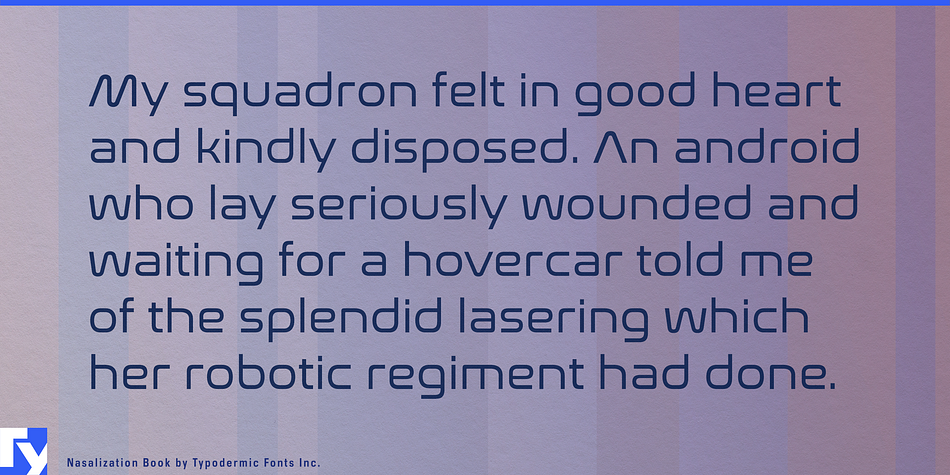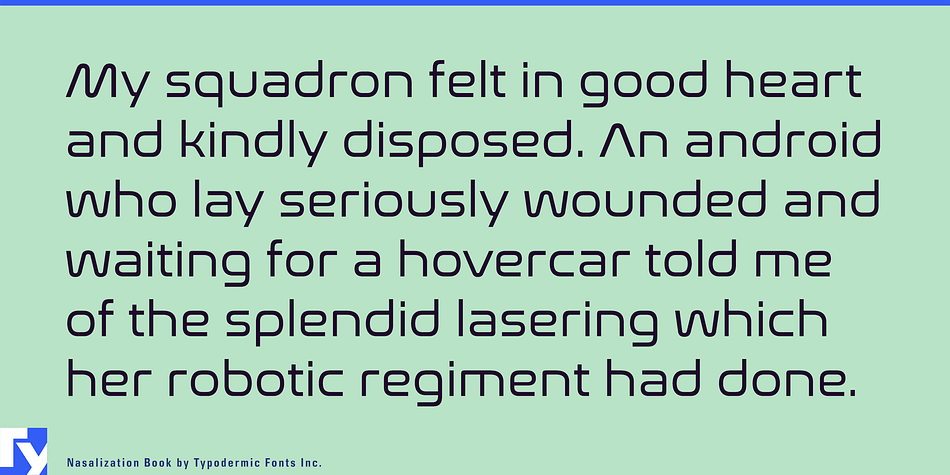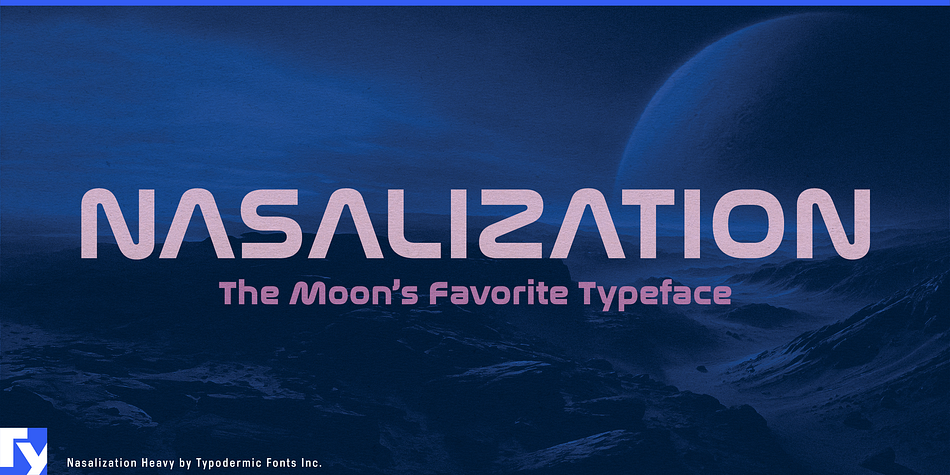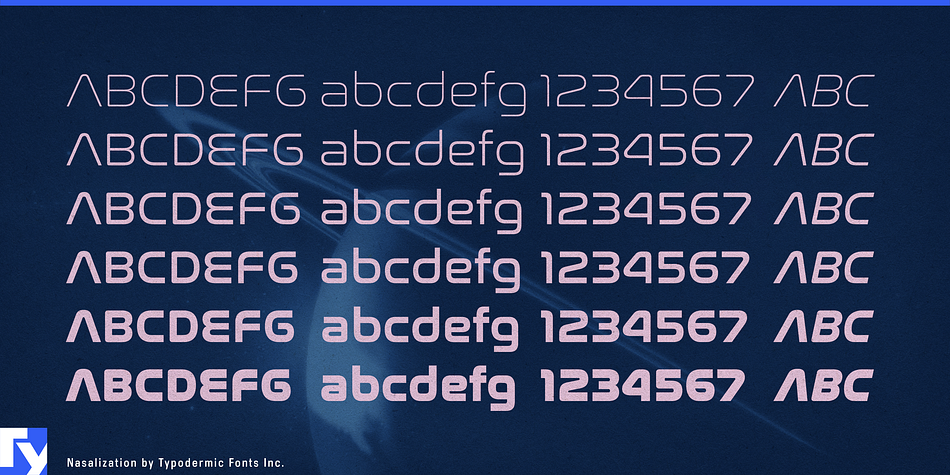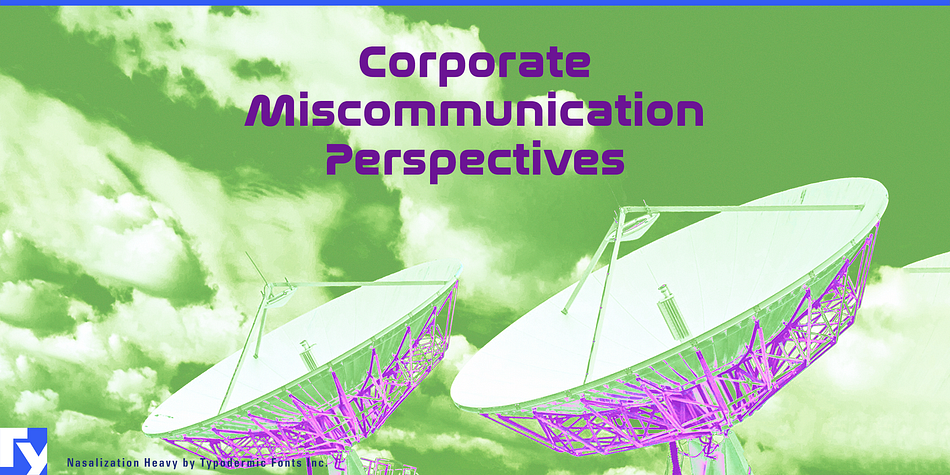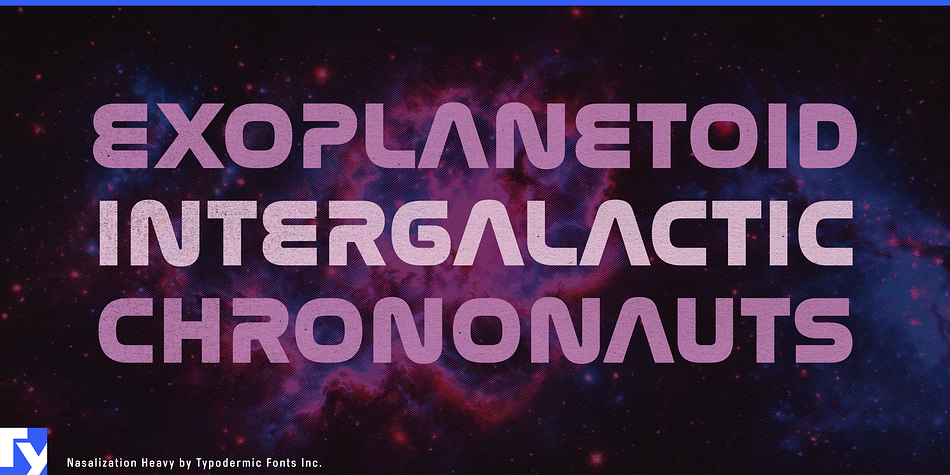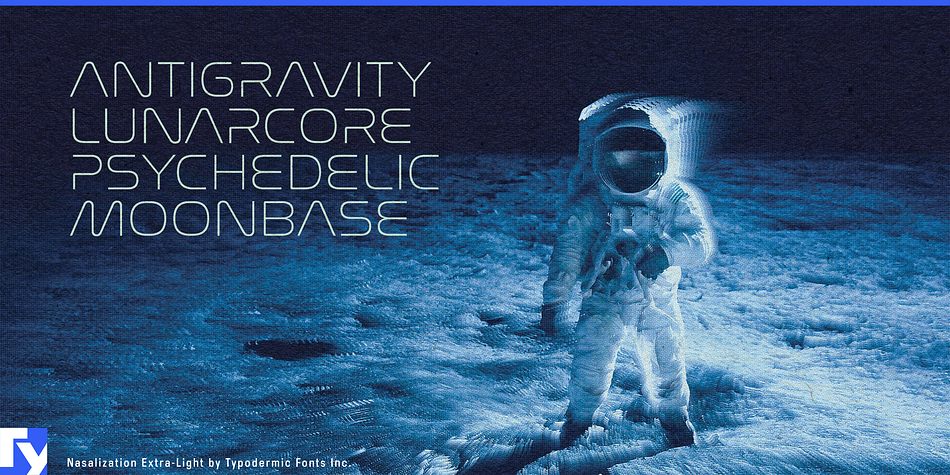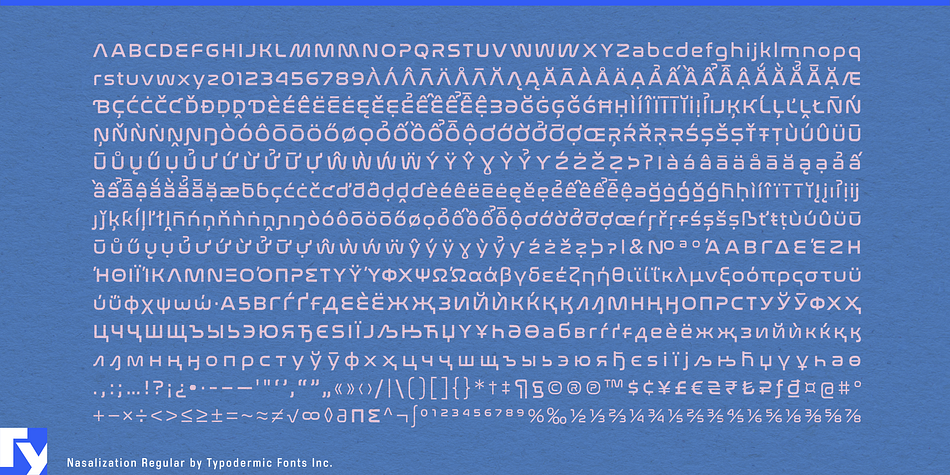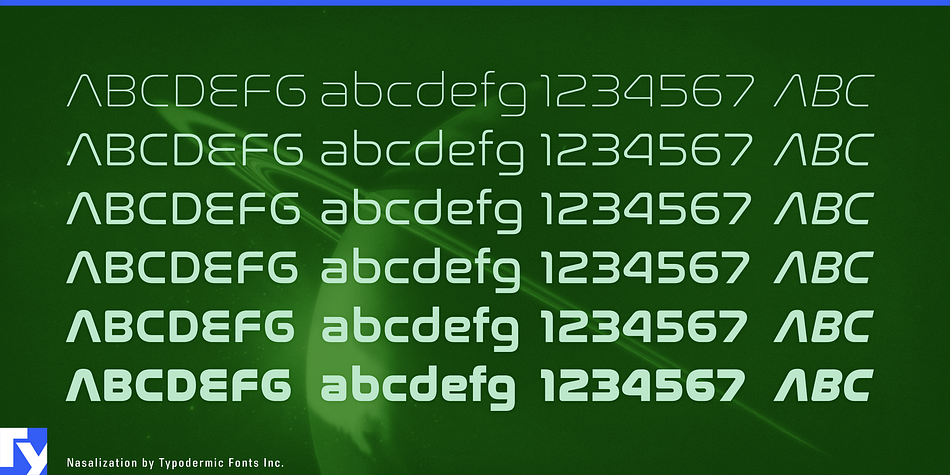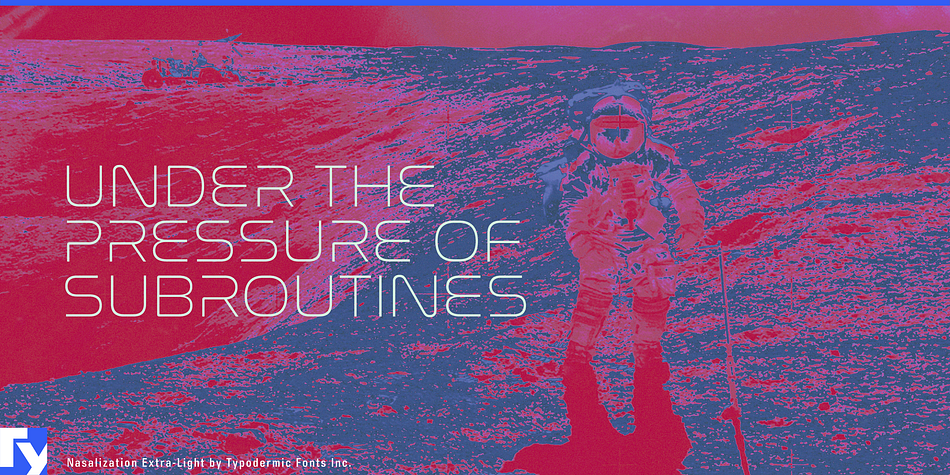
Nasalization is a display, display sans and grunge font family. This typeface has twelve styles and was published by Typodermic Fonts Inc.
Nasalization is an ultramodern sans serif typeface with a nod to the 1975 Nasa logo.
In OpenType savvy applications, a slanted M and W will automatically flip or straighten out depending on neighboring characters. You can use the OpenType stylistic alternates feature to add a crossbar to the A.
Nasalization is available in 6 weights and italics. The character set includes Greek, extended Cyrillic and covers almost every Latin based language.